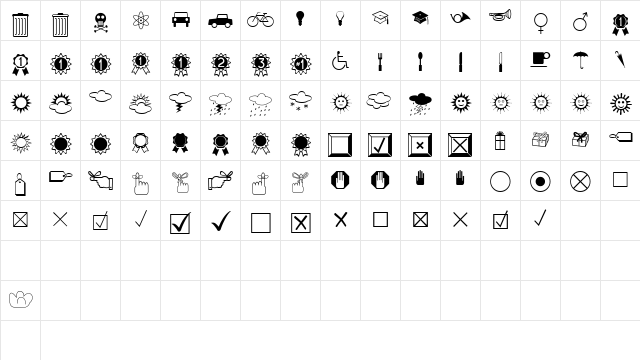
XIngyDingTwo Regular
Design Context for XIngyDingTwo Typeface
XIngyDingTwo is a composed and adaptable typeface that performs quietly and consistently across a wide range of design contexts.